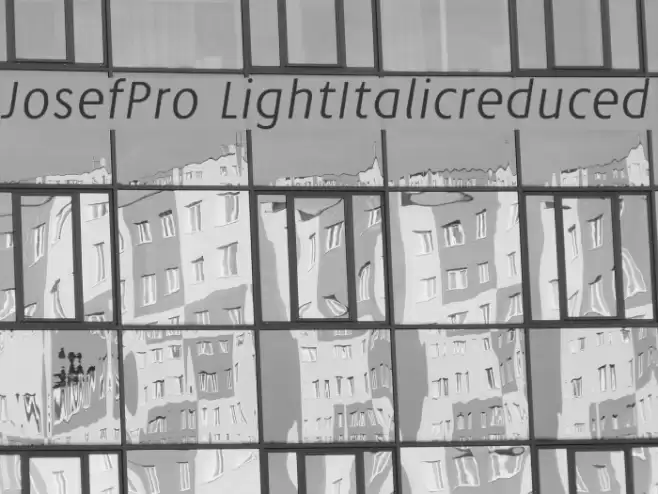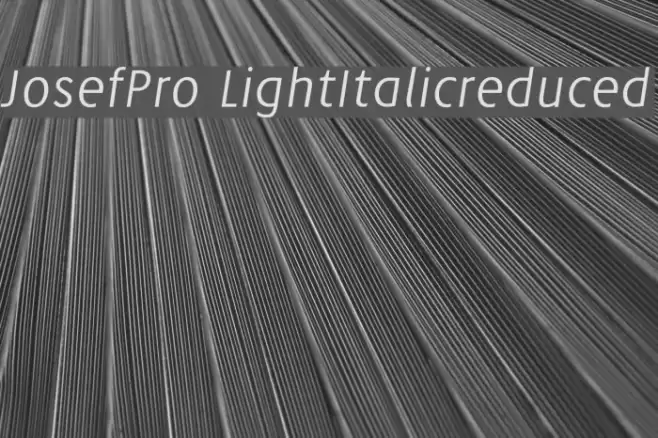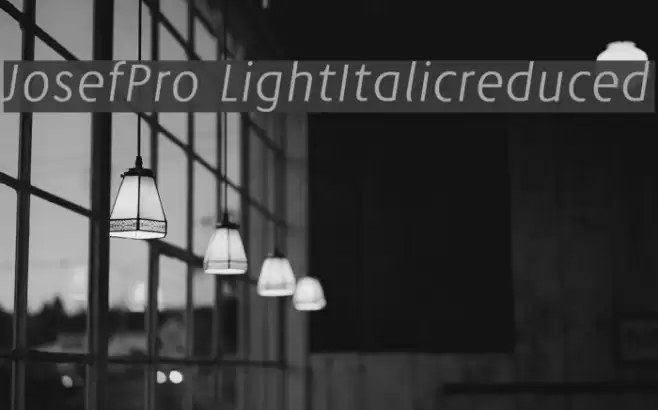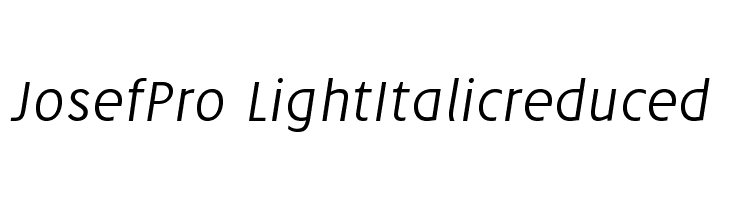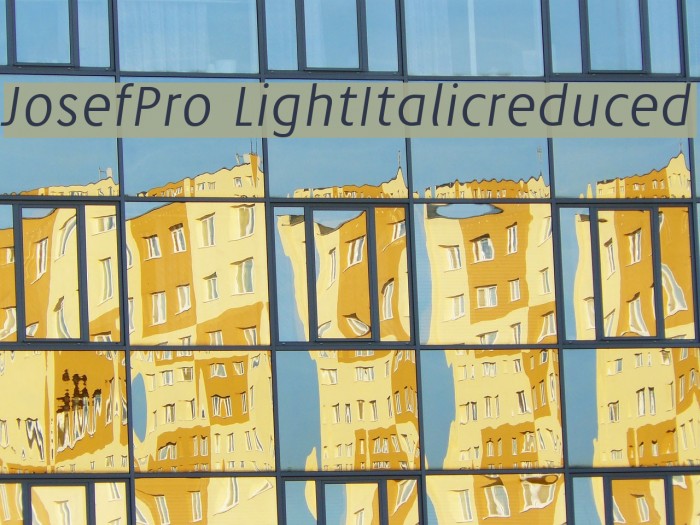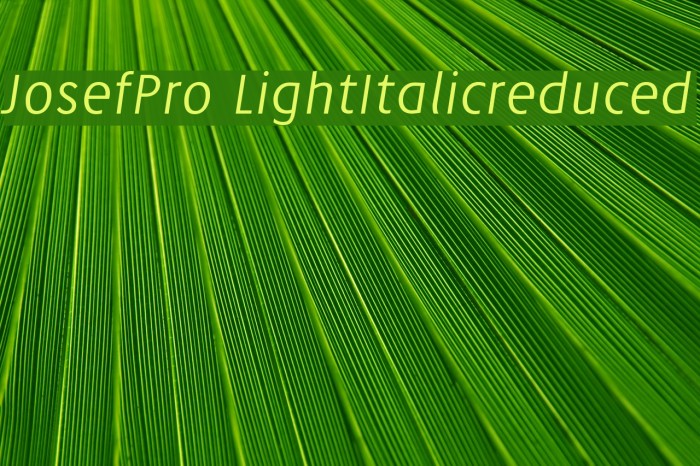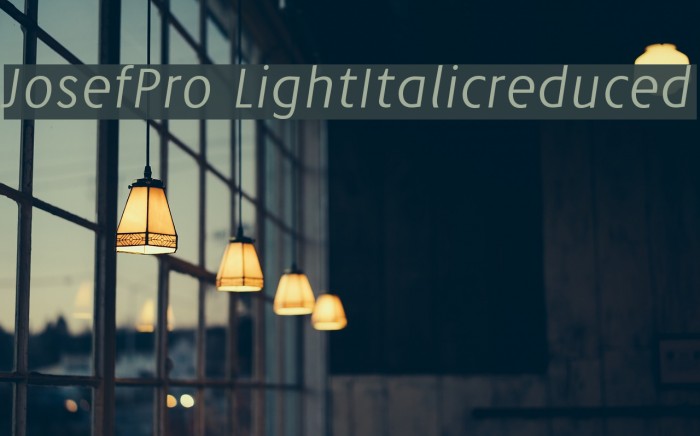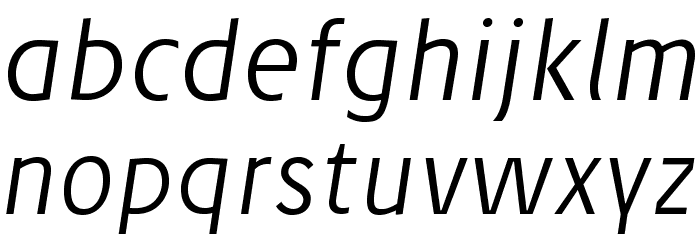
JosefPro-LightItalicreduced Font
JosefPro-LightItalicreduced Description
This font features a sleek and modern design with a light weight and italic style. The characters are elegantly slanted, giving a sense of motion and fluidity. The strokes are consistent and smooth, with a uniform thickness that contributes to its clean appearance. The spacing between characters is balanced, ensuring readability while maintaining a stylish look. This font is versatile, suitable for both digital and print media, and can be used to convey a contemporary and professional tone.
A sleek, modern, light italic font with balanced character spacing from Uncategorized fonts.